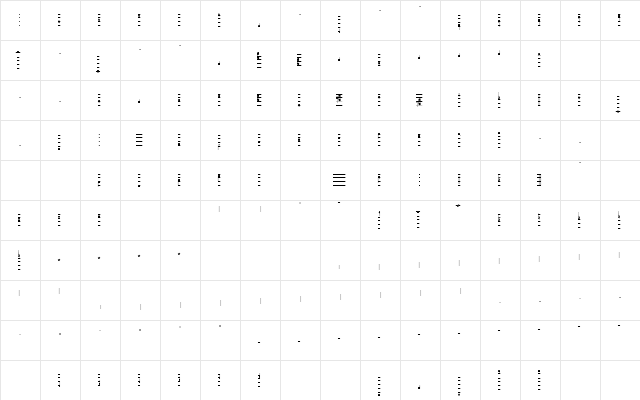
Meinrad Test T
Design Context for Meinrad Test Typeface
Meinrad Test offers clean, dependable letterforms without strong stylistic allegiance, making it a practical choice for designers who need flexibility.